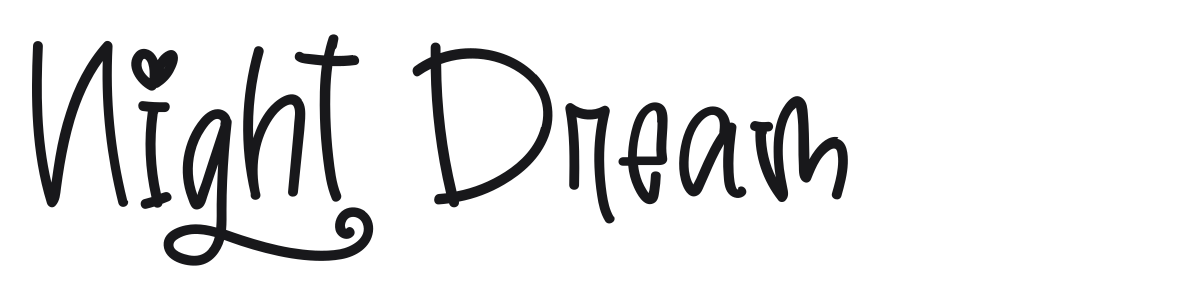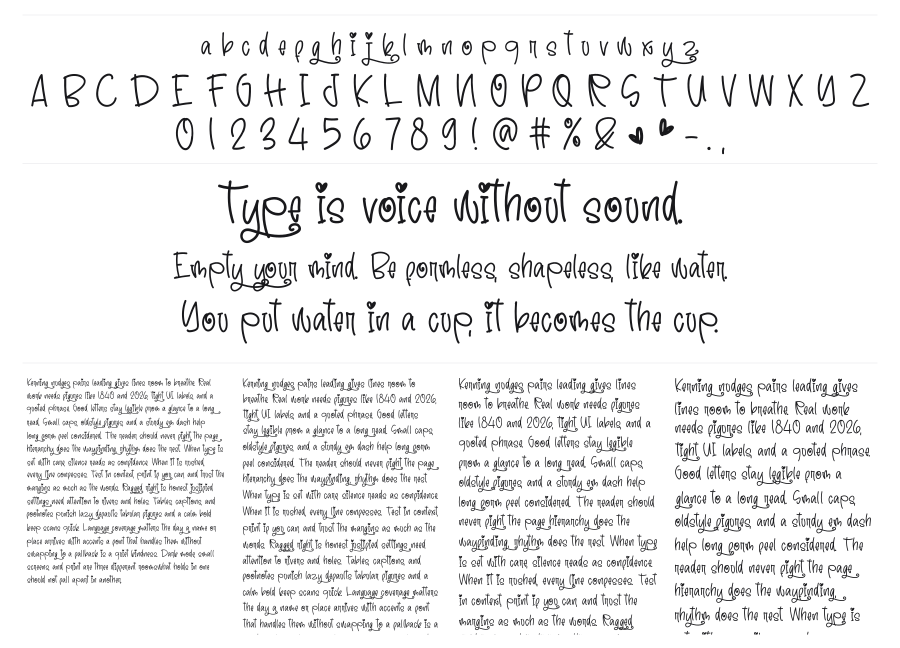
Night Dream
by Al Ghul · Website
Night Dream is a bouncy casual handwritten font with rounded strokes and playful swash flourishes on select characters. The varying baseline and decorative details like a small heart give it a lively, dreamy personality that feels personal and warm. It works well at large sizes for titles, packaging, and social media graphics.